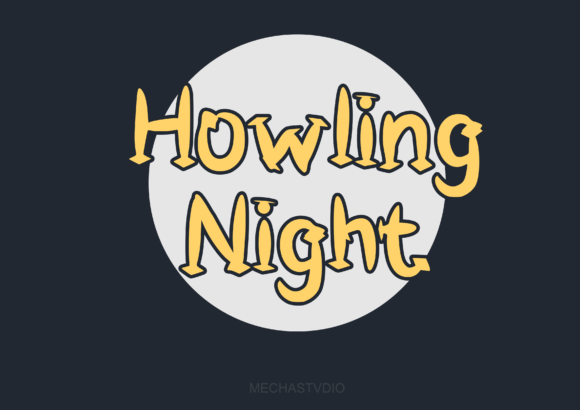
Introduction to Brushties Fist Font Font
Fonts play a crucial role in design, and the Brushties Fist Font font is a typeface that brings both character and versatility to any project. Whether you’re working on a branding project, a website, or a print design, the Brushties Fist Font font offers a unique style that can elevate your work.
Brushties Fist is a playful, bold, and unique display font perfect for logos, branding, stationery, poster designs, social media posts, and more.
Key Features of Brushties Fist Font Font
Why Choose Brushties Fist Font Font?
The Brushties Fist Font font is more than just a typeface – it’s a design tool that helps you communicate your message with style and clarity. Its unique character set and versatile design make it suitable for a wide range of applications, from elegant invitations to bold headlines.
With its carefully crafted letterforms and balanced proportions, the Brushties Fist Font font ensures readability and visual appeal across all mediums.
What makes Brushties Fist Font font special?
The Brushties Fist Font font stands out with its unique design, exceptional readability, and versatility across various design applications.